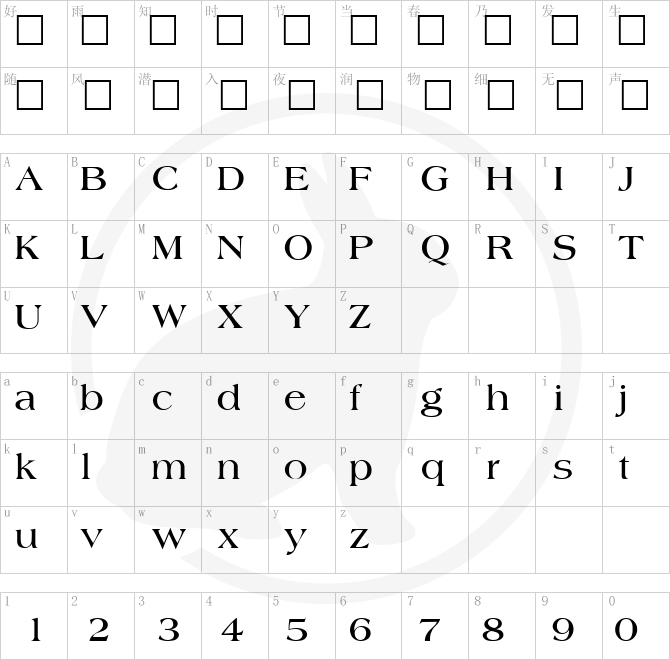
- Font Name:QTAgateType
QTAgateType-Bold.ttf is a very beautiful artistic font, QTAgateType-Bold.ttf is widely used in the design and printing of various books and pictures,QTAgateType-Bold.ttf has a strong visual impact,QTAgateType-Bold.ttf is a commonly used font in newspapers, magazines and books, and is used in posters, e-commerce Poster design, store design, logo design, font design and other fields.QTAgateType-Bold.